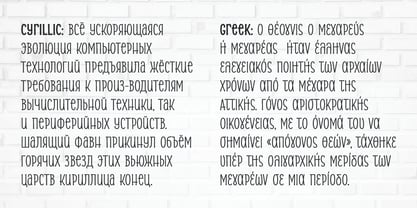
Alasassy Caps
von Leksen Design
Die Schriftfamilie Alasassy Caps wurde von Andrea Leksen entworfen und von Leksen Design veröffentlicht. Alasassy Caps enthält 12 Stile und Familienpaketoptionen.
Alasassy is an informal typeface that is designed to liven up logos, headlines, informal signs, advertising, book or report covers, or packaging. It’s narrow and looks hand-written, as though it had been drawn with a felt-tip pen that left little ink balls on the ends of letters. The lowercase mixes capital and lowercase letter shapes that all have the same height, and there are alternate characters with a mix of high and low crossbars that give the design versatility and a whimsical feeling. Type designer Andrea Leksen wrote out pages of Sharpie pen drawings to get the look she wanted for Alasassy. She describes it as “a great combination of an organic, hand drawn feel but still clean and crisp enough to look professional.” Alasassy is offered in three weights—Regular, Bold, and Black—with italic complements for each. The Pro version contains more language support, including Cyrillic and Greek. See Alasassy for a version with lowercase letters. https://www.myfonts.com/collections/alasassy-font-leksen-design
Type designer, graphic designer and educator Andrea Leksen serves clients through her studio, Leksen Design. She invests in the world of typography through font releases, speaking engagements and publications. Ms Leksen's font releases include Applesassy, Mr Gabe, Nordeco, Nordique and Bemis. In-between font releases, she is most likely found gardening, parenting, sailing or tango dancing.